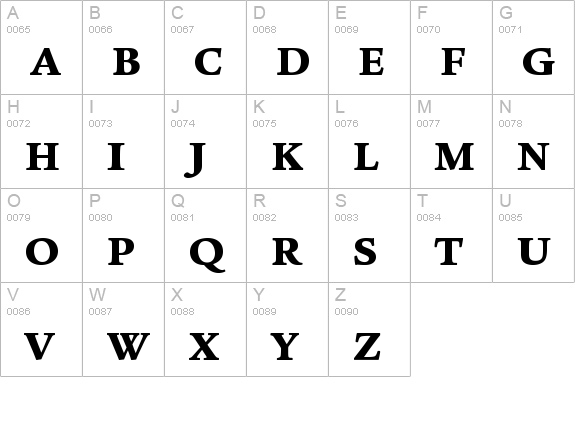
LegacySerifEF-Ultra is an extreme-weight, display variant in the LegacySerifEF typeface family \xE2\x80\x94 well suited to extreme display use where maximum visual weight is required.
Introducing LegacySerifEF-Ultra, a captivating and timeless font that effortlessly combines elegance with a touch of vintage charm. This font is sure to leave a lasting impression on any project, from invitations and logos to editorial designs and branding materials. LegacySerifEF-Ultra boasts a uniquely sophisticated appeal, with its bold and pronounced serifs that exude confidence and refinement. The carefully crafted letterforms exhibit a graceful flow, making each character a work of art in itself. Its versatility allows it to adapt seamlessly to both traditional and contemporary designs, making it a perfect choice for any creative endeavor. But what truly sets LegacySerifEF-Ultra apart is that it is not just visually stunning, but also freely available to download at FontsMarket.com. Yes, you read that right – this exceptional font can be yours without any cost. Embracing the spirit of accessibility and creativity, LegacySerifEF-Ultra invites designers and typographers alike to explore its vast potential, without any restrictions or limitations. Whether you are a seasoned professional or an aspiring designer, LegacySerifEF-Ultra offers a wealth of possibilities. Its timeless beauty and versatility make it an ideal choice for a wide range of applications, from elegant wedding invitations to refined corporate branding. With its effortless sophistication, this font effortlessly adds a touch of class to any project. So, why wait? Unlock your creative potential and elevate your designs with LegacySerifEF-Ultra. Download this exquisite font for free at FontsMarket.com and let your imagination run wild. Experience the power of LegacySerifEF-Ultra and create designs that leave a lasting legacy.